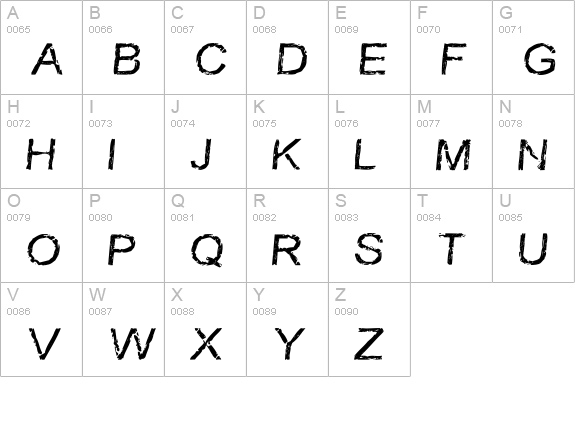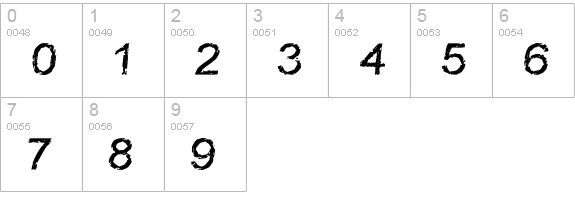
Carbonized Timber Font Details
Introducing Carbonized Timber font, a unique and eye-catching typeface that combines the rugged charm of carbonized wood with the sleek elegance of modern typography. This font features bold, angular letterforms with a distinctive charred texture, giving it a striking and edgy appearance that is sure to make your designs stand out. Whether you're working on a branding project, poster design, or any other creative endeavor, Carbonized Timber font will add a touch of rustic sophistication to your work. Its versatile style makes it suitable for a wide range of applications, from logos to headlines to product packaging. Best of all, Carbonized Timber font is available for free download at FontsMarket.com. So go ahead and give your designs a bold and distinctive look with this unique typeface today!